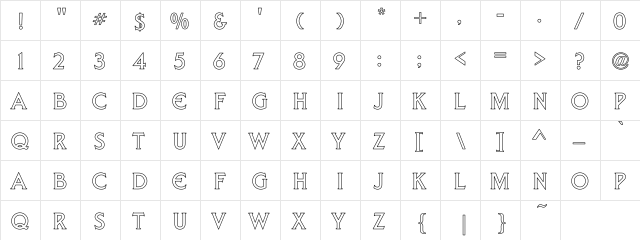
Trek DS9 Hollow Regular Font Preview
Trek DS9 Hollow Regular
Design Context for Trek DS9 Hollow Typeface
Trek DS9 Hollow is a composed and adaptable typeface that performs quietly and consistently across a wide range of design contexts.